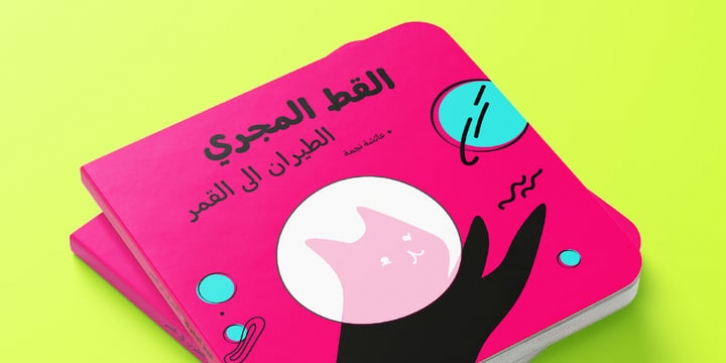
Nawin is an informal Arabic typeface inspired by handwriting. The idea behind this design is to create a type family attractive and ownable for children but at the same time a design that keeps excellent letter recognition for reading. Handwriting has been a great source of inspiration in this particular typeface. By emulating the movements of the pen, we have obtained letter shapes that express spontaneity. A bright group of letters create a lively and beautiful paragraph of text.
To get closer to handwriting and the variety of letter shapes that we draw while writing, this typeface offers a large number of alternative characters, which differ slightly from the default ones. Because we have programed the «Contextual Alternate» feature in the fonts, these alternate characters appear automatically as you set a text on your computer.
For instance, in the Arabic variability on vertical proportions between letters Alef and initial Lam, create movement in text and avoid the cold mechanical feel of repetition. In the case of the Latin a part from having an entire alternate basic alphabet, there are also different letterforms for characters with diacritics, this way variability becomes even greater. Nawin is quirky and elegant at the same time.
Letter recognition is relevant when reading continuous text. For this reason, in the Arabic, we have added another contextual alternate feature with alternate characters that help to avoid confusion when letters with similar or the same shape repeat inside one word. This is the case of medial «beh and Yeh» repeated three times continuously in the same word. The alternate characters change in shape and length, facilitating distinction to the reader.
Since this typeface is inspired by handwriting and the free movement of the hand while writing, we considered ligatures a good asset for this design. The Arabic has a wide range of ligatures that enhance movement and fluidity in text making look text alive, while the Latin achieves this same effect via contextual alternates.